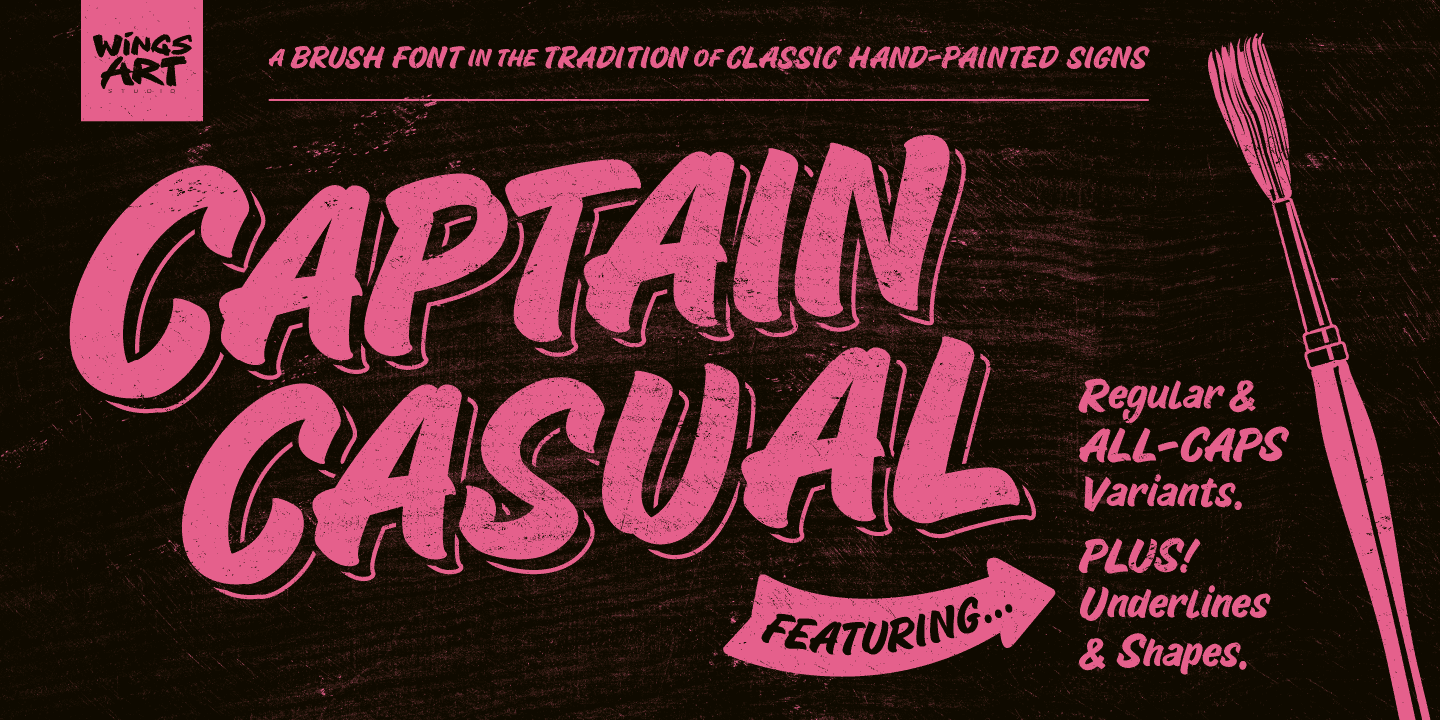
The Captain Casual Font is perfect for relaxed lifestyle branding, casual dining restaurant menus, leisure activity marketing, weekend event promotions, laid-back retail signage, vacation resort communications, outdoor adventure advertising, and friendly social media graphics. This versatile typeface excels in casual dining chains, leisure companies, lifestyle brands, recreational businesses, and any organization seeking to communicate approachability, comfort, and easygoing confidence in their visual communications.
What makes Captain Casual Font so exciting is its perfectly balanced character that combines confident leadership with approachable casualness, creating an instantly likeable and trustworthy aesthetic. The font features relaxed letterforms with friendly curves, comfortable proportions, and distinctive details that project both authority and accessibility. Its casual design philosophy makes it ideal for brands that want to communicate competence without intimidation, leadership without formality, and the kind of confident ease that makes customers feel comfortable and welcome.
The Captain Casual Font family includes comprehensive weight variations: Light, Regular, Medium, Semi Bold, Bold, and Black versions, each available in upright and italic styles. Additionally, it offers casual alternates, friendly decorative elements, and relaxed flourishes that enhance the font's approachable appeal. The family includes extended character sets with multilingual support and specialized glyphs for leisure and lifestyle design applications.
When you choose Captain Casual Font Free Download, you're selecting a typeface that embodies confident casualness and approachable leadership while ensuring exceptional functionality across all modern applications. This font seamlessly combines relaxed aesthetics with professional reliability, making it perfect for both digital platforms and traditional print applications. The carefully crafted letterforms maintain perfect legibility while the distinctive casual qualities create memorable brand experiences that resonate with audiences seeking authentic, down-to-earth excellence.
Whether you're developing lifestyle brand identities, creating casual marketing materials, designing leisure communications, or establishing a visual identity that celebrates confident relaxation and approachable leadership, this font delivers outstanding warmth and casual appeal. The Captain Casual Font transforms your content into friendly communications that build trust and reinforce your brand's commitment to making customers feel comfortable while maintaining professional excellence.
This remarkable typeface represents the perfect balance between confident authority and casual approachability. Download this engaging font today and discover how casual typography can enhance your projects, create welcoming brand experiences, and establish your reputation as a leader who puts people at ease while delivering exceptional results.